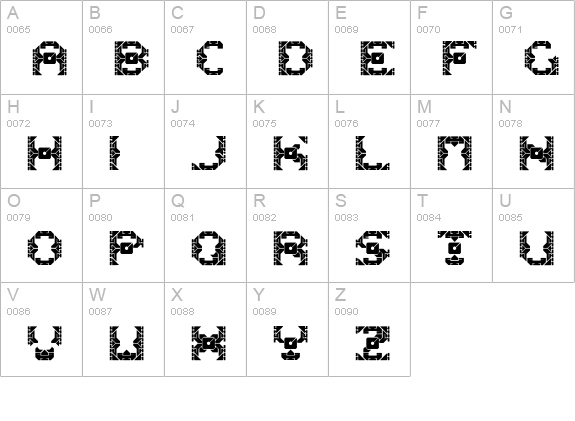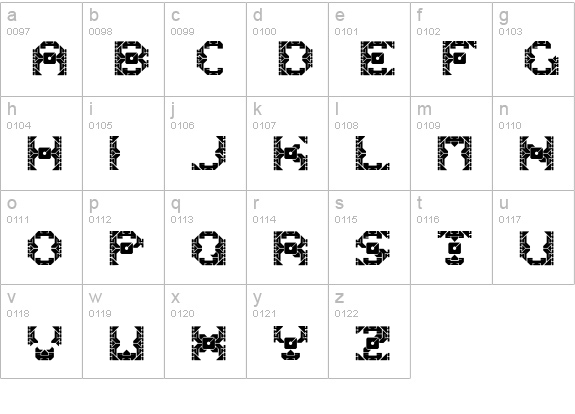
Dazzle Ships Font Details
Introducing the captivating Dazzle Ships font, a unique and eye-catching typeface that is sure to make your designs stand out. Inspired by the bold and dynamic patterns of World War I dazzle camouflage, this font exudes a sense of energy and creativity. Dazzle Ships features a playful yet sophisticated design, with each letter meticulously crafted to create a striking visual impact. Whether you're working on a poster, logo, or branding project, this font will add a touch of modernity and flair to your work. Best of all, Dazzle Ships is available for free download at FontsMarket.com. This means you can easily add this stunning font to your collection without any cost. Don't miss out on the opportunity to enhance your designs with the one-of-a-kind Dazzle Ships font today!